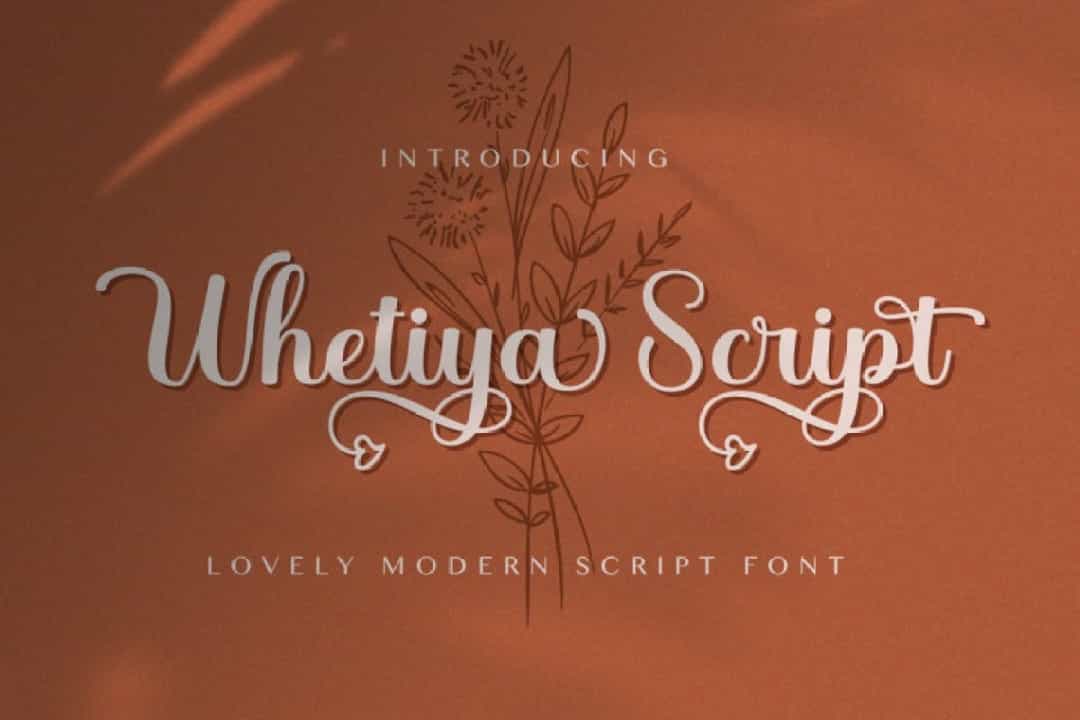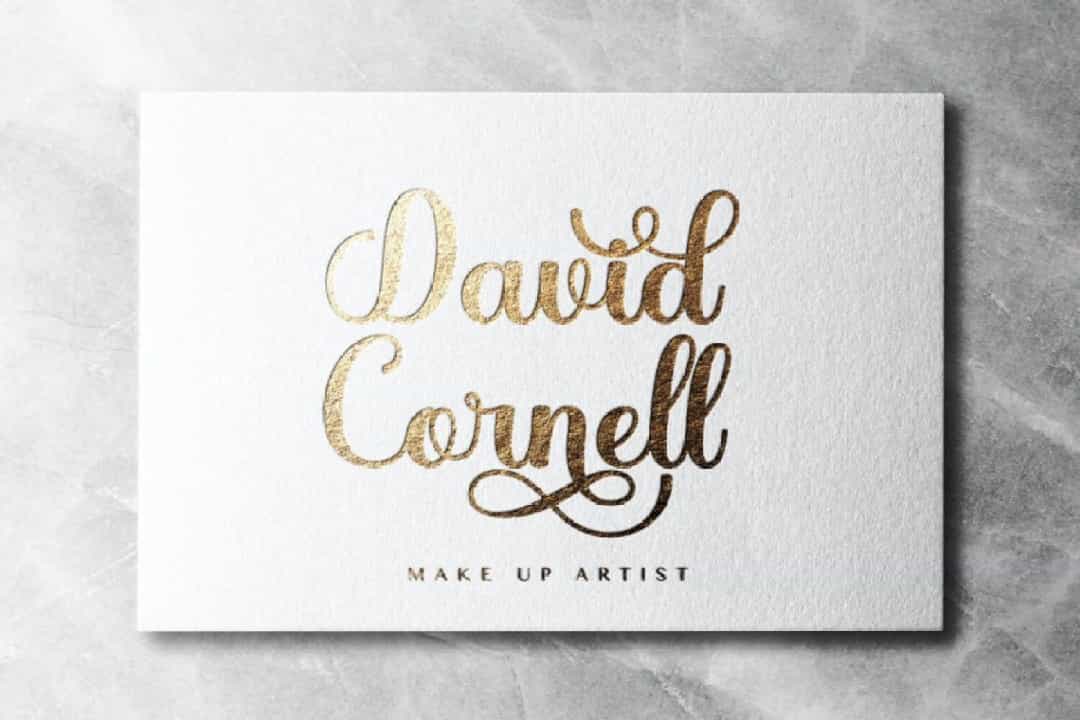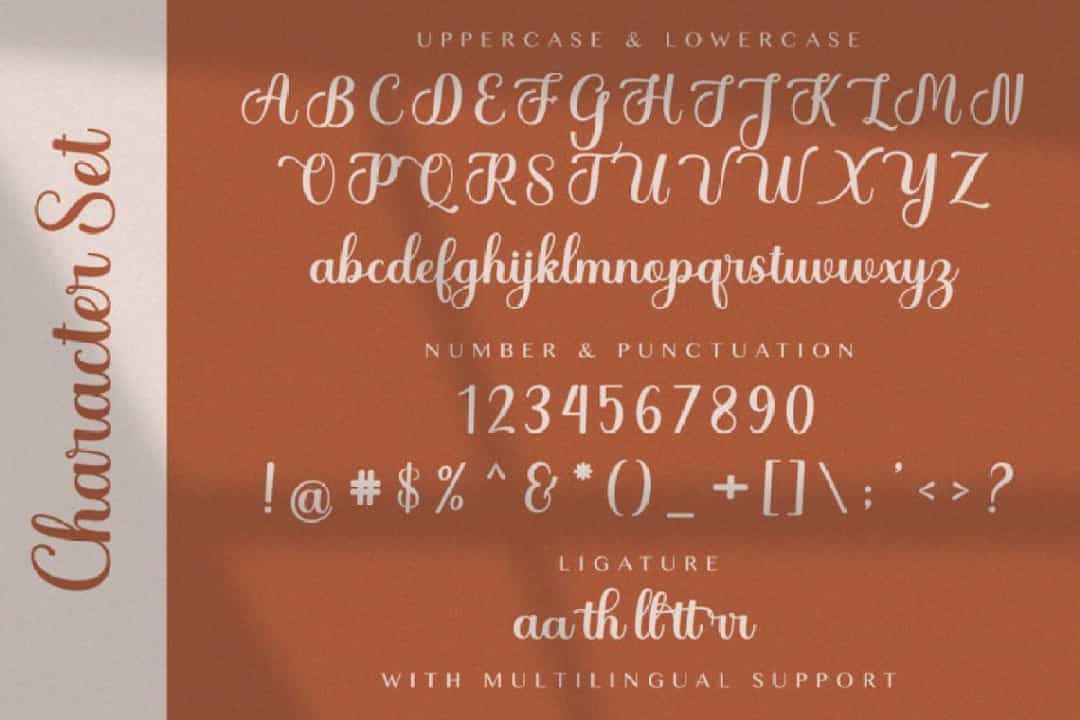
Whetiya is a script font that is perfect for any fandom and will surely become fans’ favorite. Still maintaining its calligraphic style, Whetiya is modern and chic and you will be hooked and become more productive in your work! Once the consumer has accessed the PUA Encoded Font they are able to access all the swashes, glyphs and characters of the font!